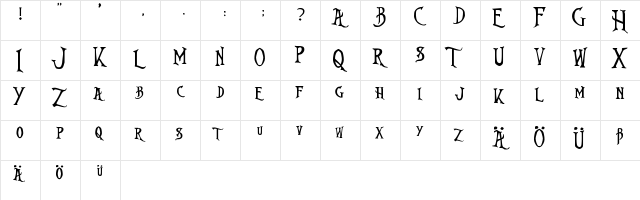
Nightmare Before Christmas Regular
Design Context for Nightmare Before Christmas Typeface
Nightmare Before Christmas is a composed and adaptable typeface that performs quietly and consistently across a wide range of design contexts.